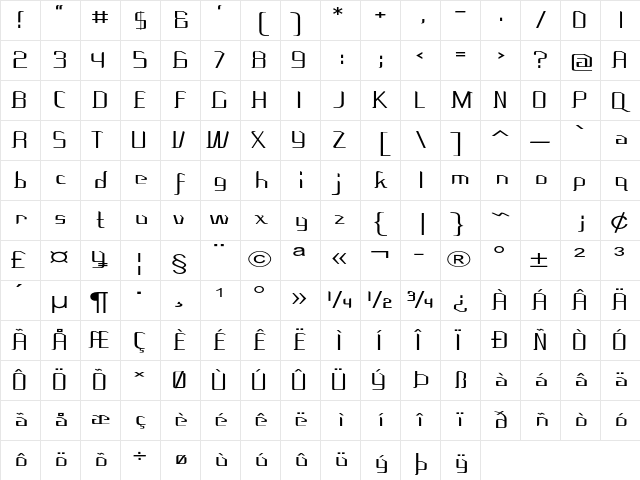
Crook Extra-expanded Regular
Style: Extra-expanded Regular
Crook Family
Crook Extra-expanded Regular
Design Context for Crook
Crook is a composed and adaptable typeface that performs quietly and consistently across a wide range of design contexts.